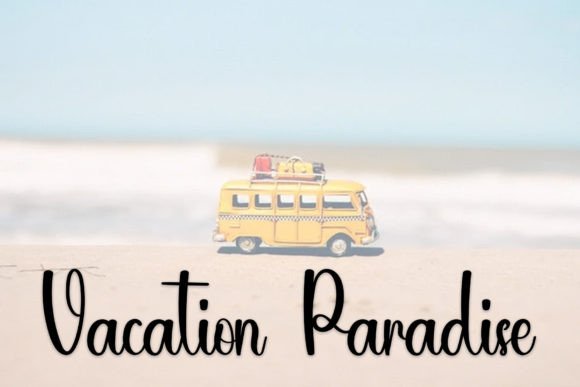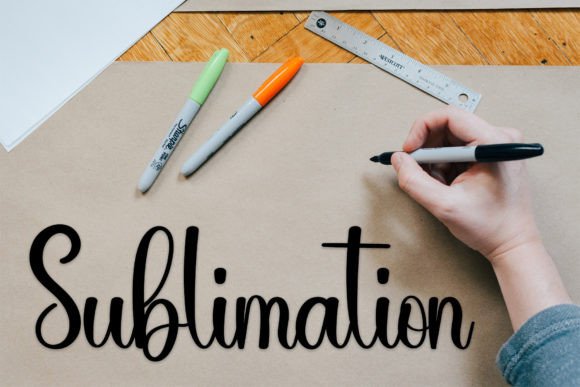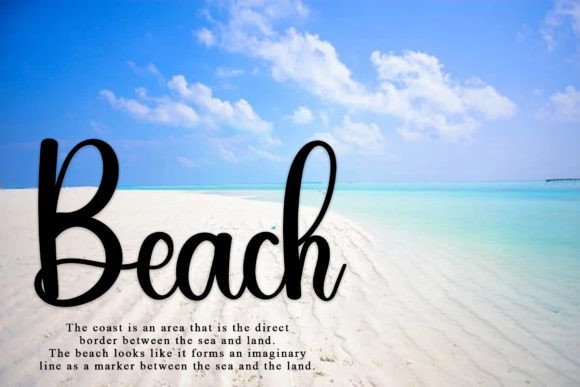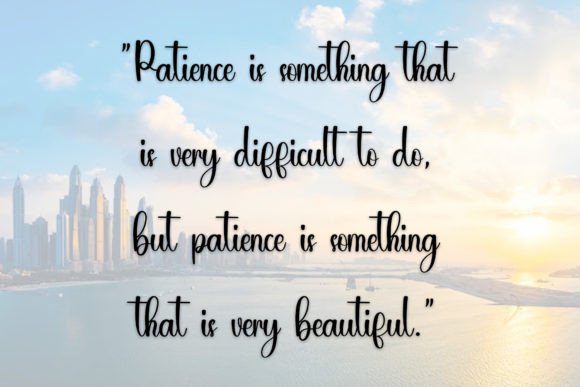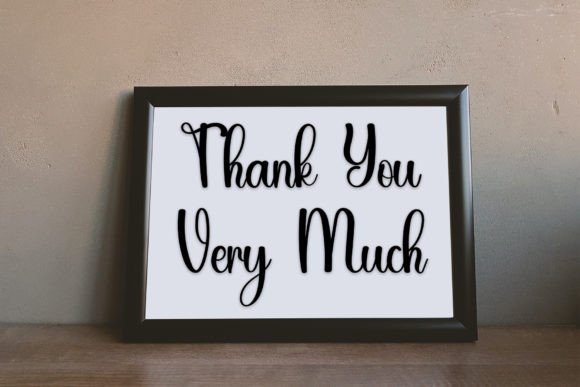
Unleash Your Creativity with the Perfect Font
Have you ever stared at a blank canvas, waiting for inspiration to strike? It’s that moment when you’re about to create something truly special, but you need the right tools to bring your vision to life. That’s where the perfect font comes in, and today we’re excited to introduce you to the August Sunshine Font – a beautiful, elegant handwritten font that’s sure to captivate your audience.
This stunning font is not just a pretty face; it’s a valuable asset for designers looking to add a touch of sophistication to their projects. With its distinct and timeless style, the August Sunshine Font is perfect for creating spectacular designs that will leave a lasting impression. Whether you’re working on a branding project, designing a wedding invitation, or crafting a social media post, this font is sure to elevate your work to new heights.
August Sunshine Font Key Features
- Font Family: August Sunshine Font
- Unique Characteristics: Soft, elegant, and modern design with subtle texture and subtle rounded edges, ideal for various creative projects
August Sunshine Font Review
Overall, I think the August Sunshine Font has some great qualities, but also a few areas for improvement.
- Beautiful, soft curves that evoke a sense of warmth and coziness.
- The script-like feel adds a touch of elegance and sophistication.
- Good legibility, making it suitable for both body text and headings.
- The font’s gentle weight range allows for effective use in various design contexts.
- The font may feel a bit too whimsical or playful for more serious or formal designs.
- The letterforms can sometimes feel a bit too rounded, which may cause readability issues at smaller sizes.
- The font’s limited character set may cause problems when working with non-English text.
The August Sunshine Font is a lovely, charming font that would be perfect for projects that require a warm and inviting atmosphere. However, it may not be the best choice for more serious or formal designs, or for projects that require a high level of legibility.
The August Sunshine font is ideal for:
1. Creating a warm and inviting atmosphere in branding materials.
2. Designing wedding invitations or other celebratory materials.
3. Adding a touch of elegance to business cards or letterheads.
Alternatives to August Sunshine Font for Designers
Great Vibes is a modern script font that is ideal for creating a friendly and approachable feel in designs. It is perfect for use in branding, advertising, and packaging. Great Vibes is similar to August Sunshine Font in its playful and elegant style, but it has a more relaxed and casual tone.
Carolyna Pro is a beautiful and elegant script font that is suitable for high-end designs. It is ideal for use in luxury branding, magazines, and invitations. Compared to August Sunshine Font, Carolyna Pro has a more refined and sophisticated look, making it perfect for creating a sense of luxury and elegance.
Alex Brush is a beautiful and elegant script font that is perfect for use in designs that require a touch of sophistication and elegance. It is ideal for use in branding, advertising, and packaging. Alex Brush is similar to August Sunshine Font in its elegant and refined style, but it has a more classic and timeless look.
Pacifico is a beautiful and elegant script font that is perfect for use in designs that require a touch of sophistication and elegance. It is ideal for use in branding, advertising, and packaging. Compared to August Sunshine Font, Pacifico has a more relaxed and casual tone, making it perfect for creating a beachy and laid-back feel.
3 Creative Project Ideas Using August Sunshine Font
Create a beautiful travel journal that captures the essence of your summer adventures. Use the August Sunshine Font to add a touch of playfulness and charm to your journal entries.